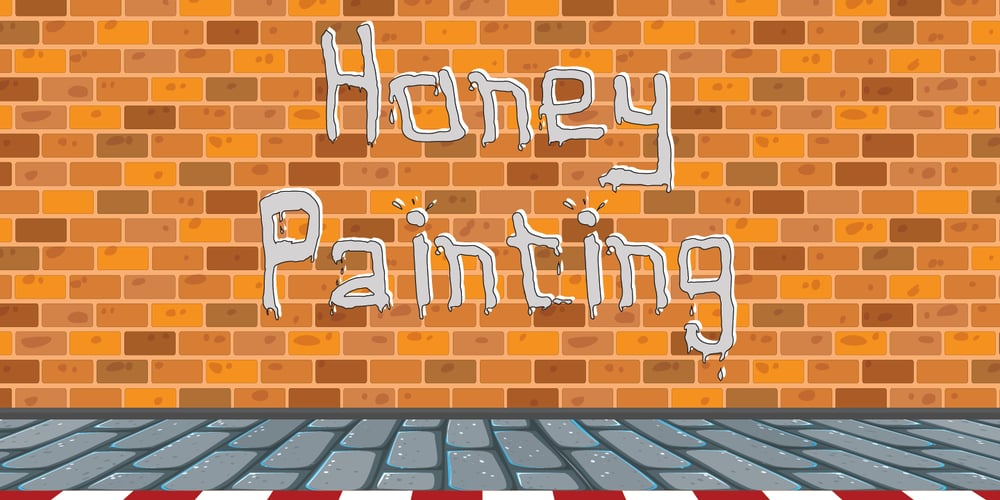
Honey Painting Font Family was designed by Hamid Azzafrar and published by Zefrar. Honey Painting contains 1 styles and family package options. Honey Painting is a font inspired from both Honey and Painting, same imagination if a user do painting with Honey, this font now is giving this option.